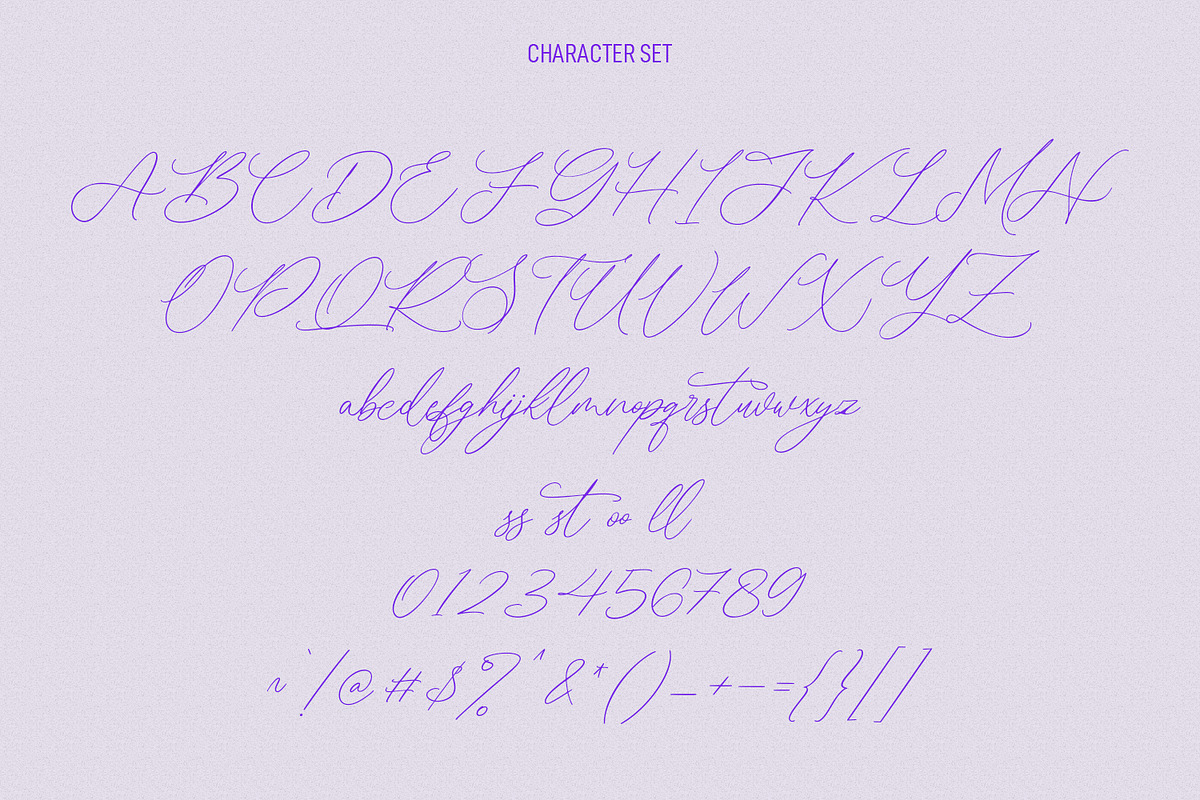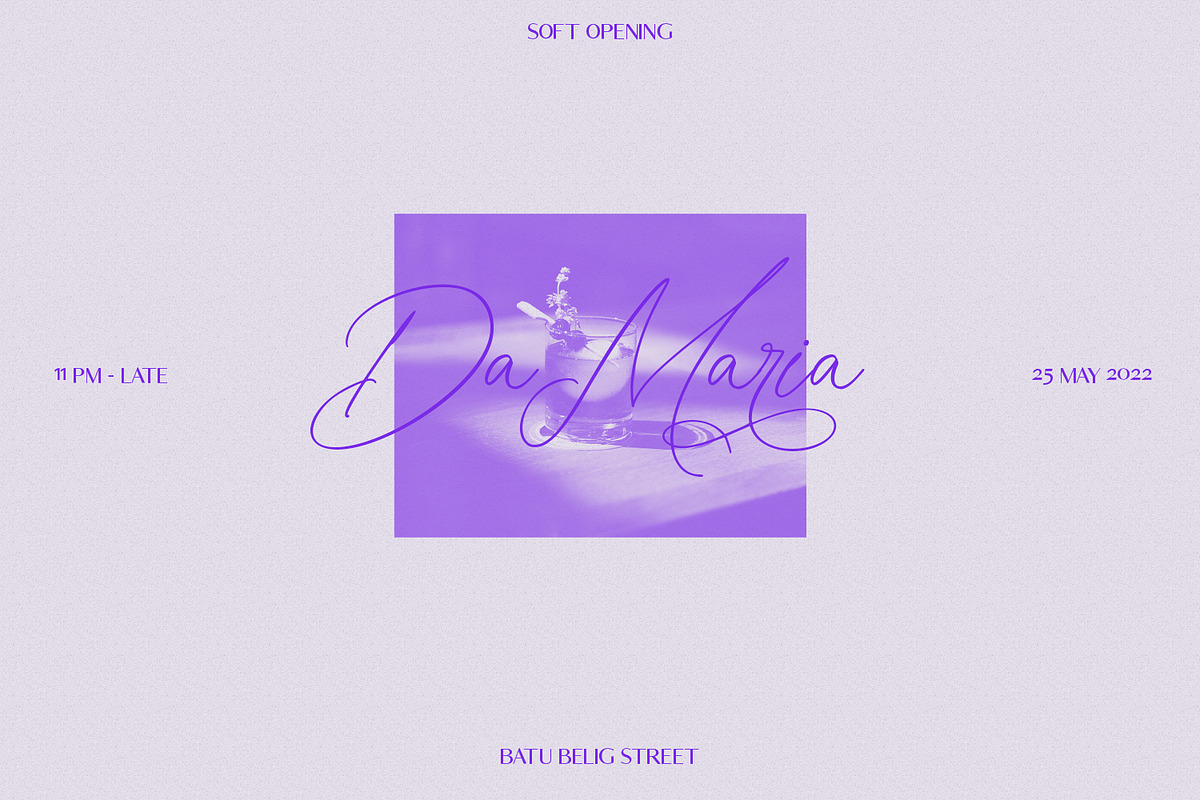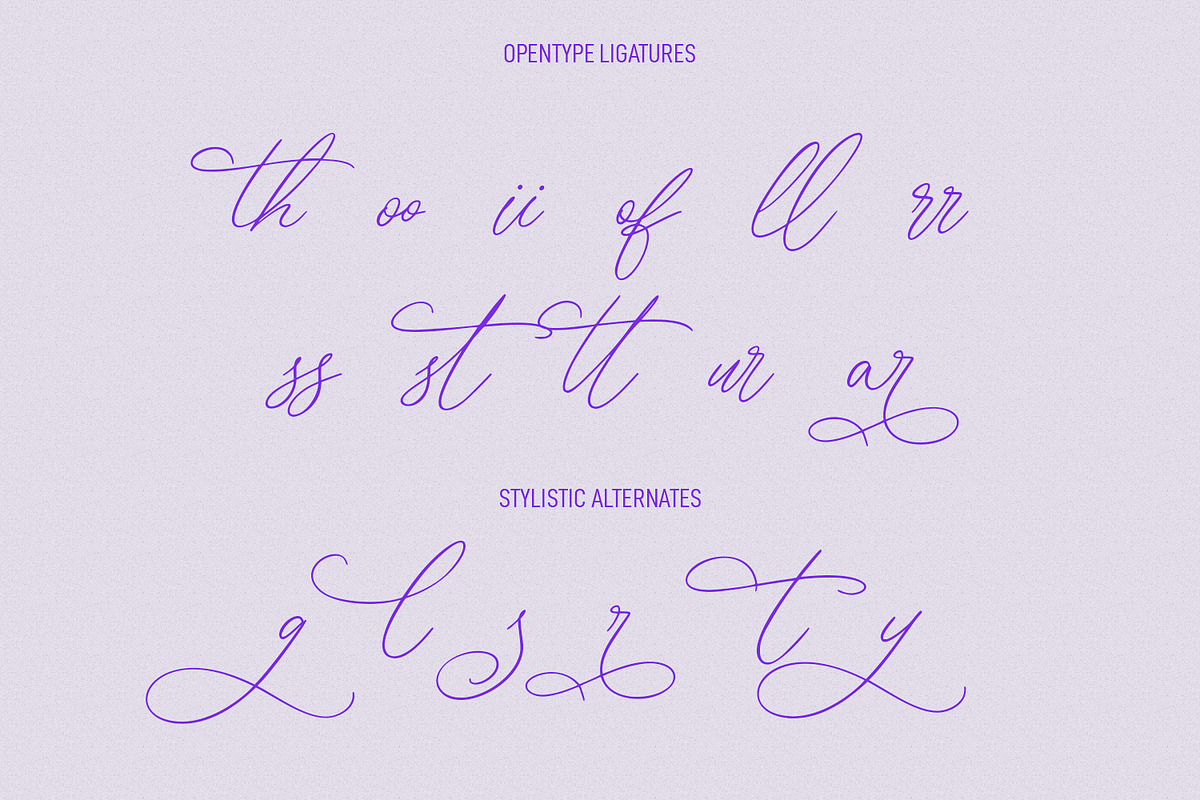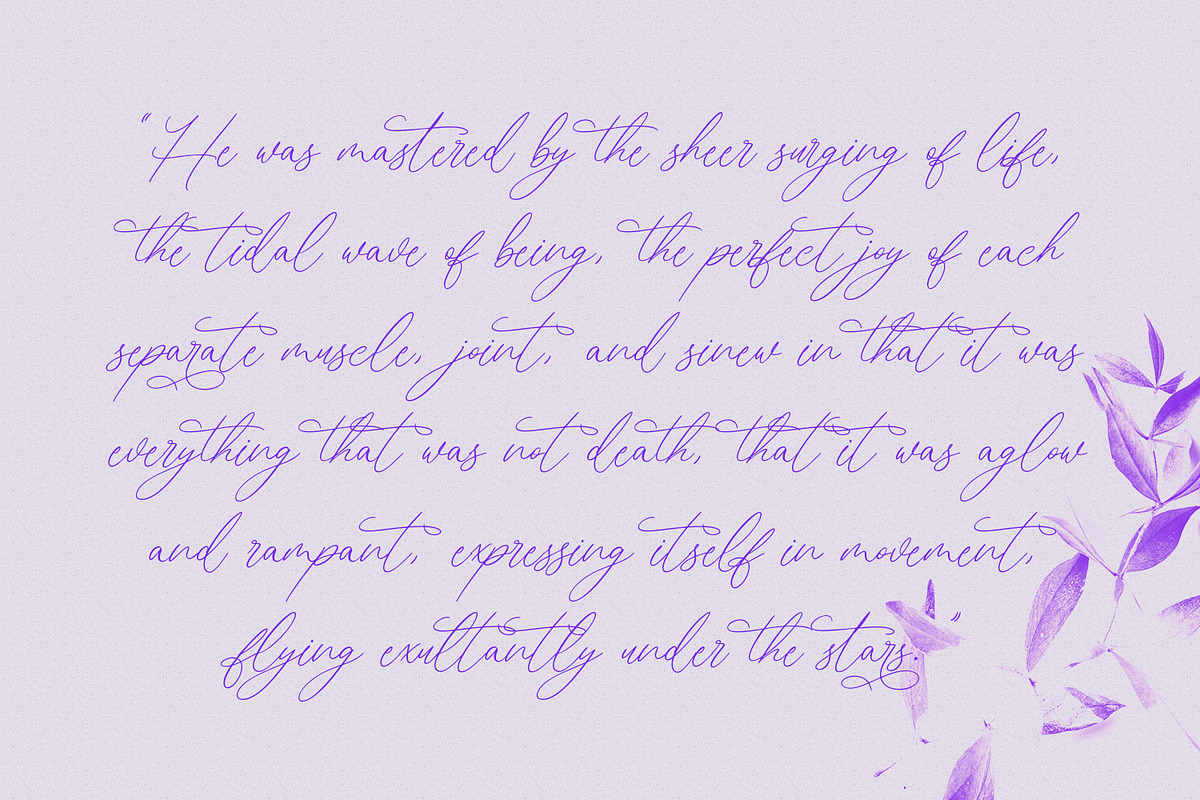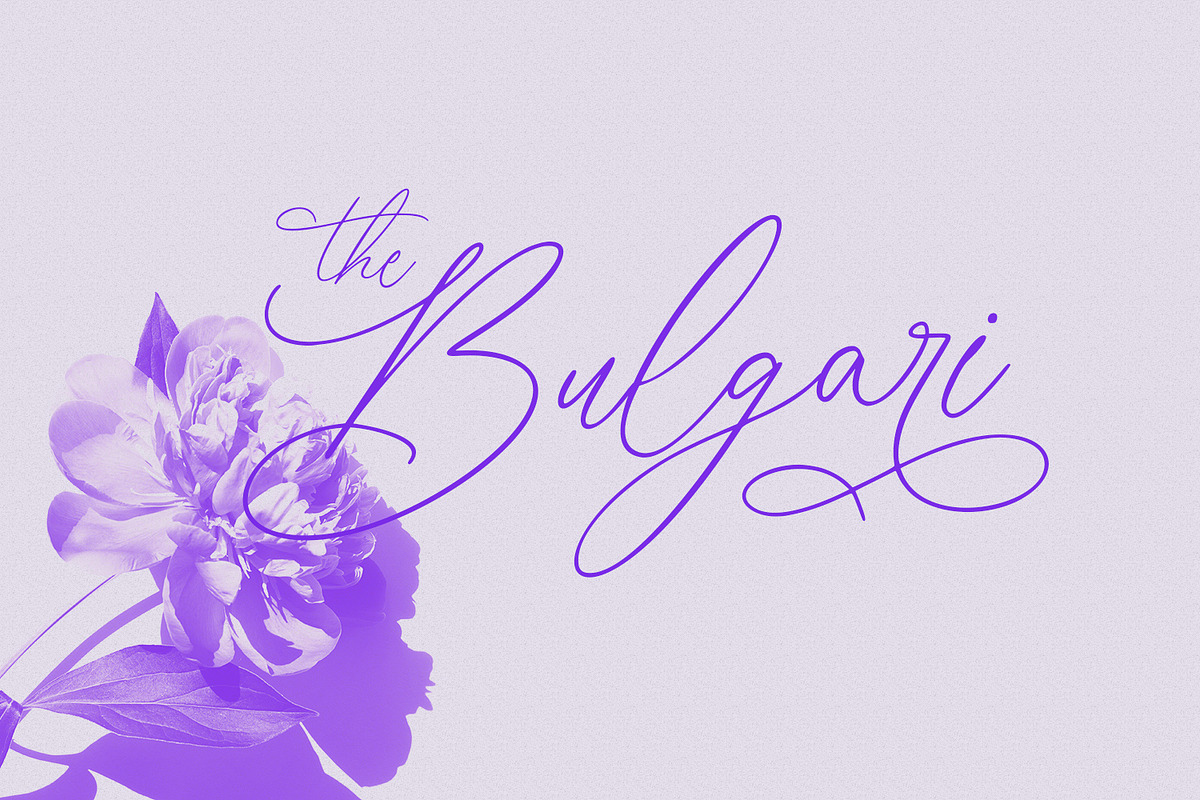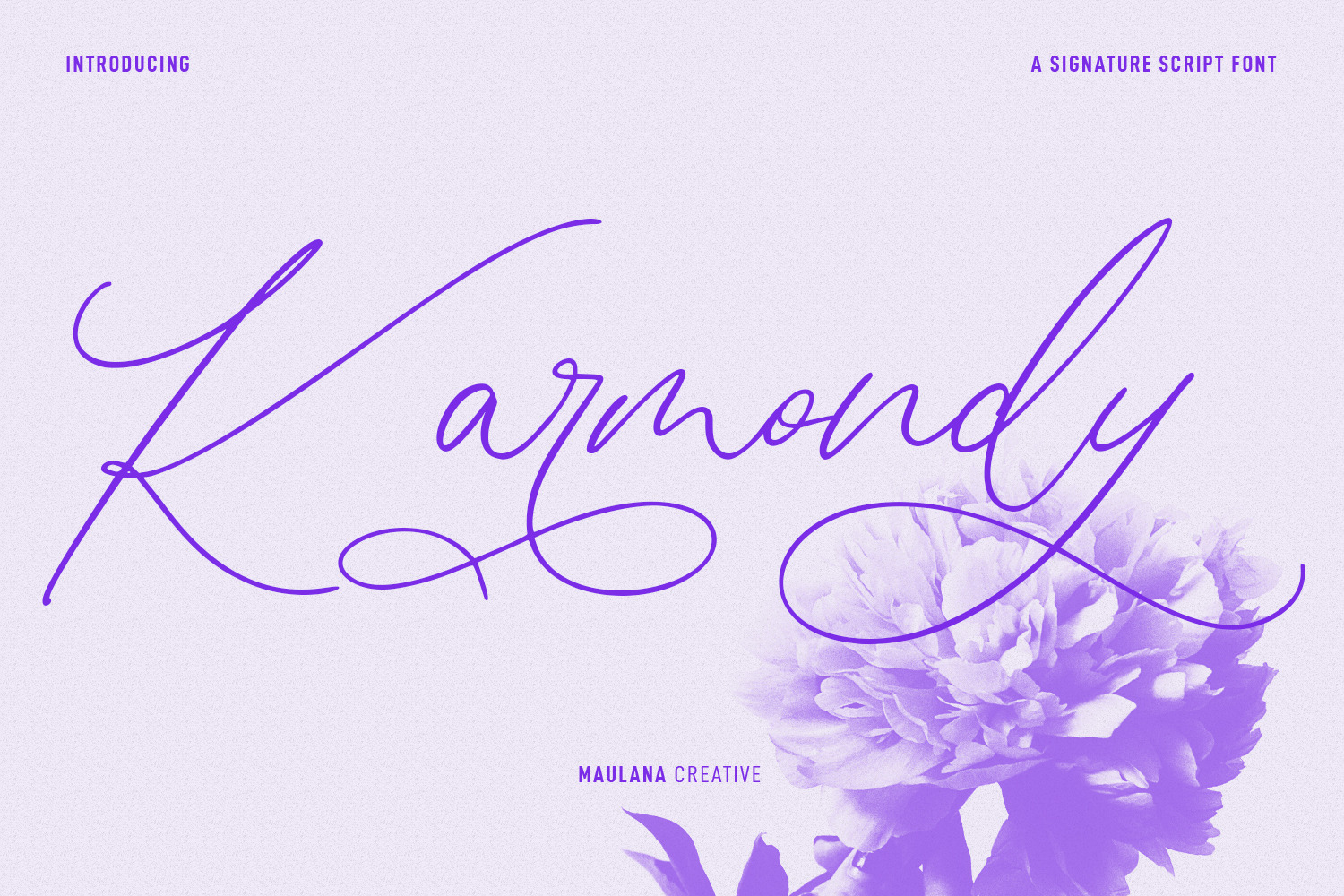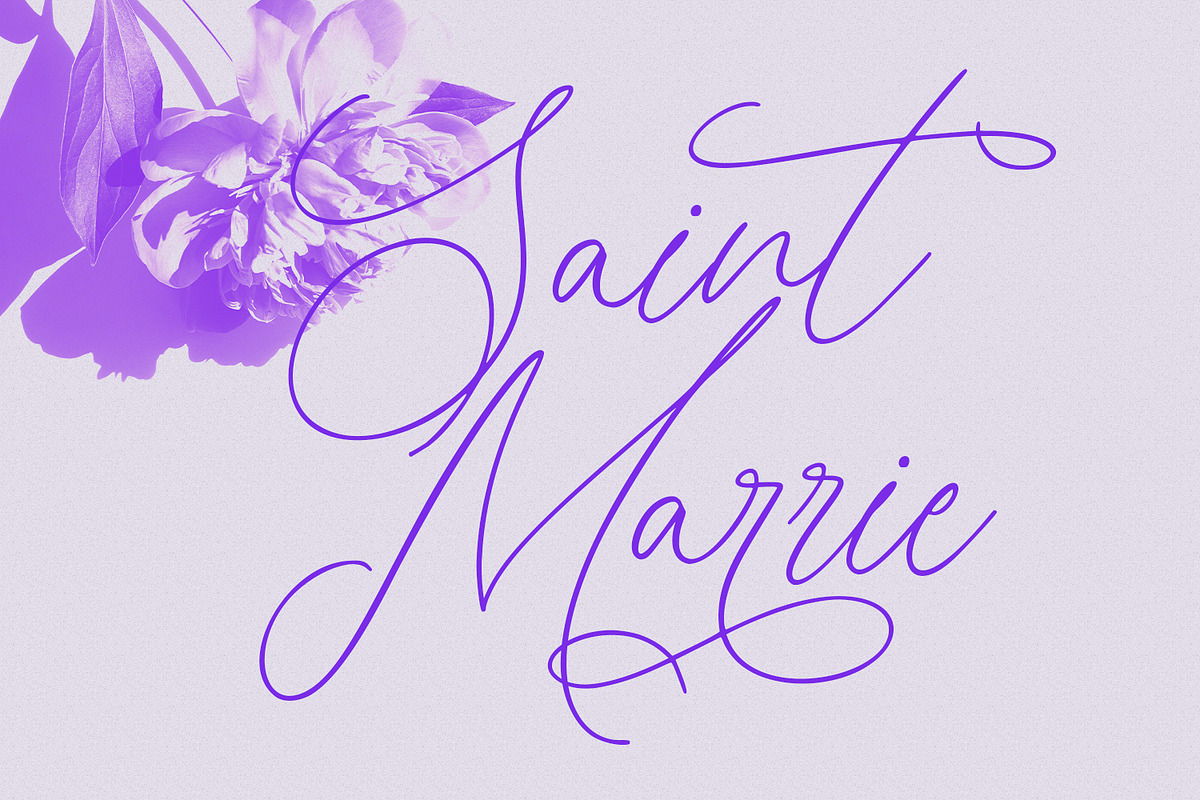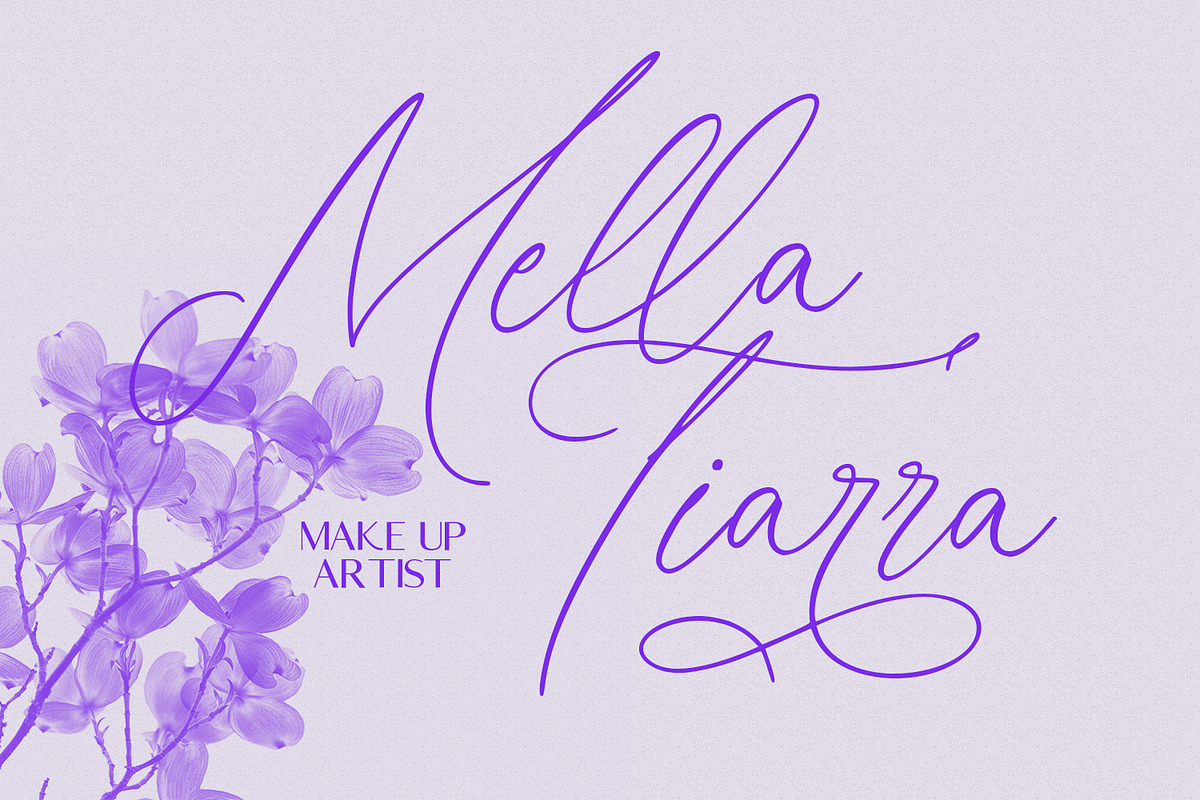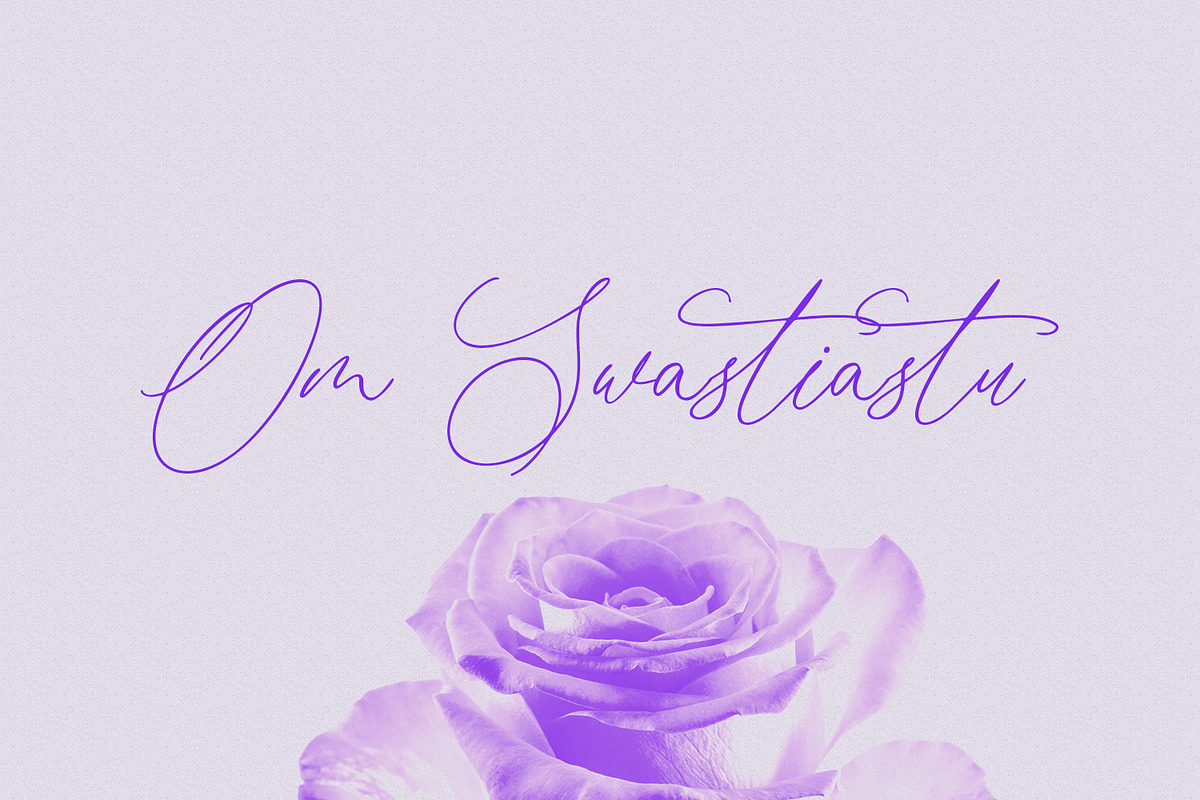
Karmondy Signature Script Font
Karmondy is a beauty casual signature script font. With light contrast stroke, fun character with a bit of ligatures and stylistic alternates. To give you an extra creative work. Karmondy font support multilingual more than 100+ language. This font is good for logo design, Social media, Movie Titles, Books Titles, a short text even a long text letter and good for your secondary text font with sans or serif. Make a stunning work with Karmondy font. What you get: – Karmondy (TTF) – Karmondy (OTF) Cheers, Maulana Creative